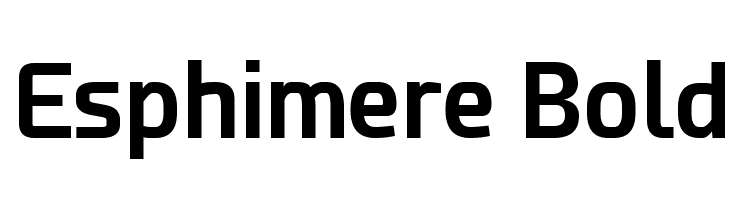
A bold, modern font with geometric shapes and consistent stroke width.
A modern, bold italic font with consistent stroke thickness and dynamic slant.
A sleek, modern font with clean lines and a minimalist aesthetic.
A sleek, modern, extra-light italic font with high contrast and elegant slant.
A modern, italic sans-serif font with clean lines and a dynamic style.
A modern, light sans-serif font with a clean and minimalist design.
A sleek, modern, and slightly italicized font with a light and airy appearance.
A modern, semi-bold sans-serif font with geometric precision and high legibility.
A sleek, semi-bold italic sans-serif font with a modern and dynamic style.
A modern, thin, and minimalist font with clean lines and balanced spacing.